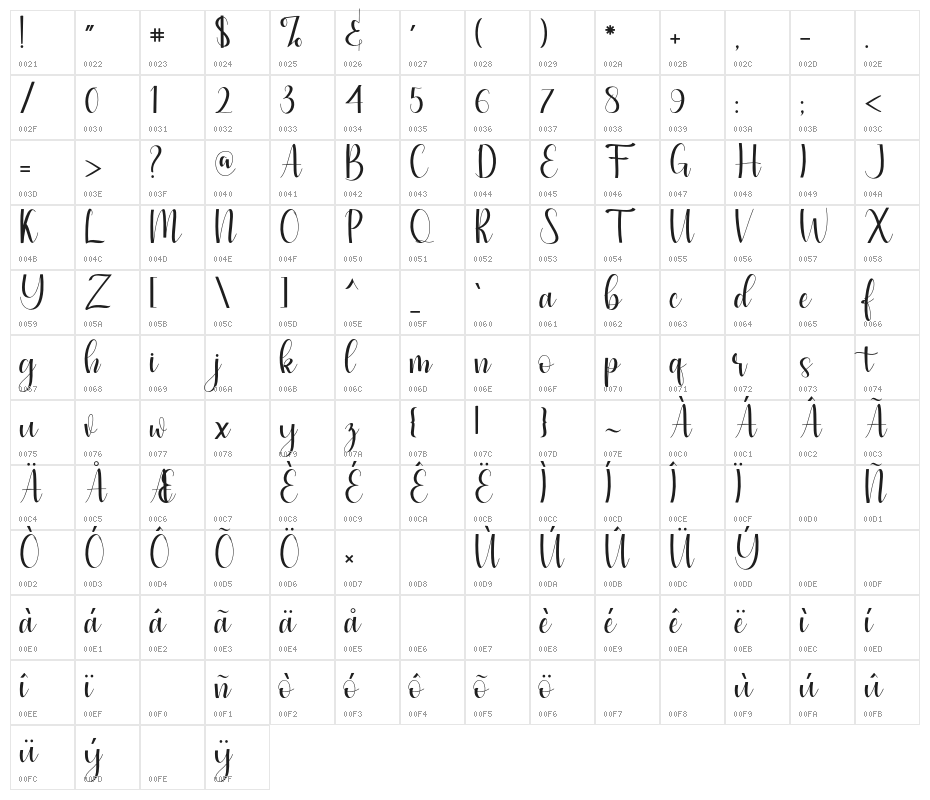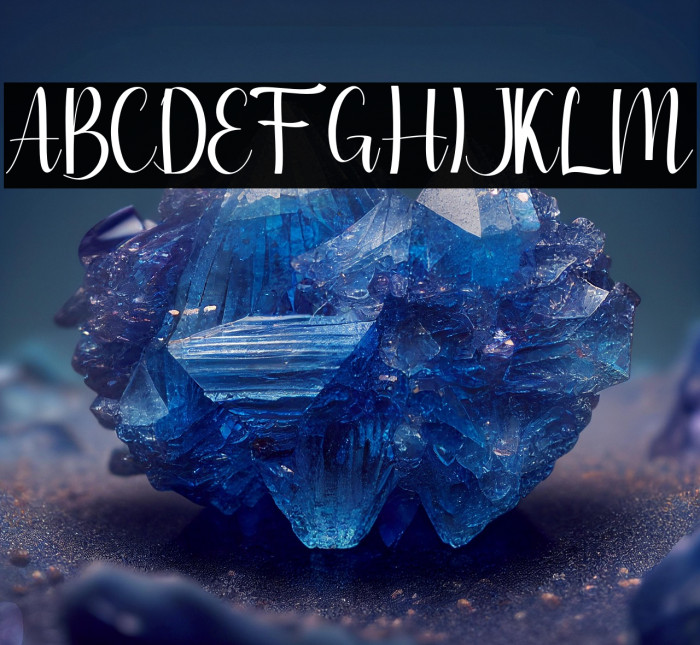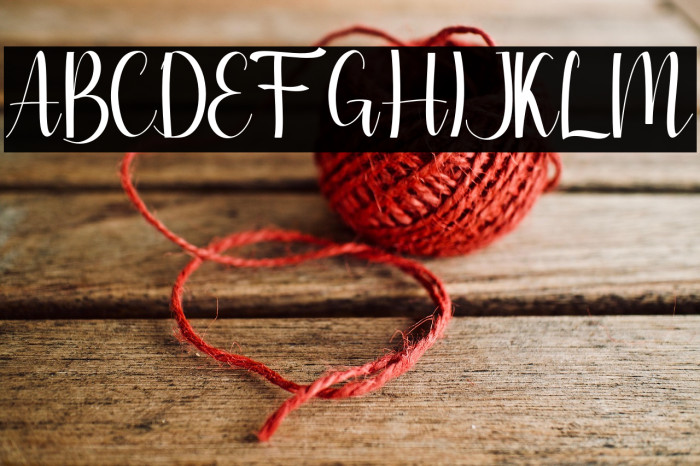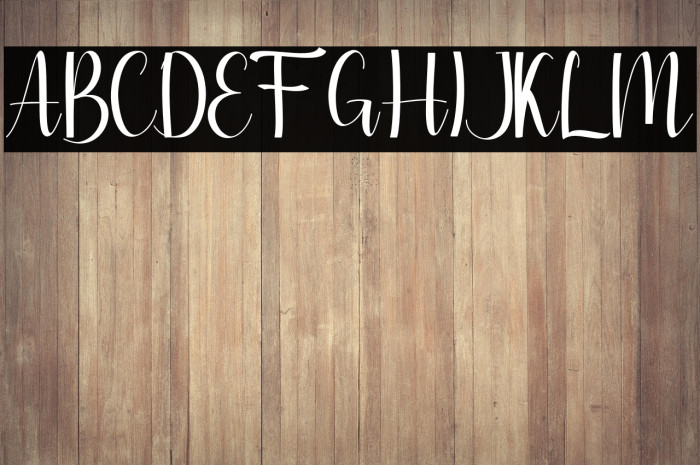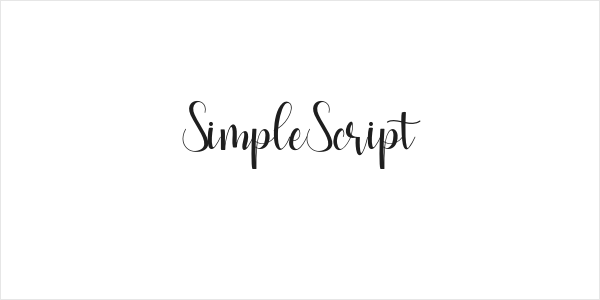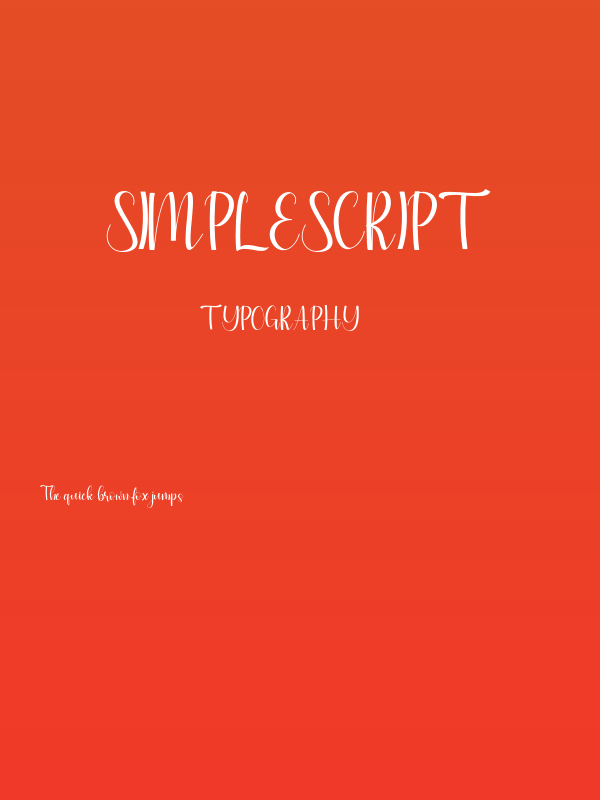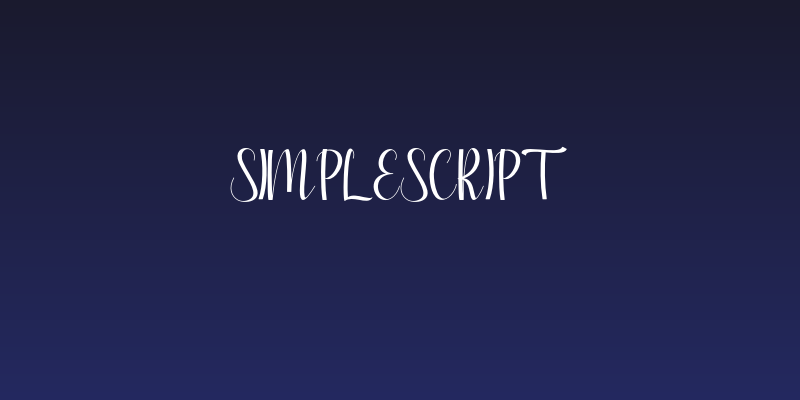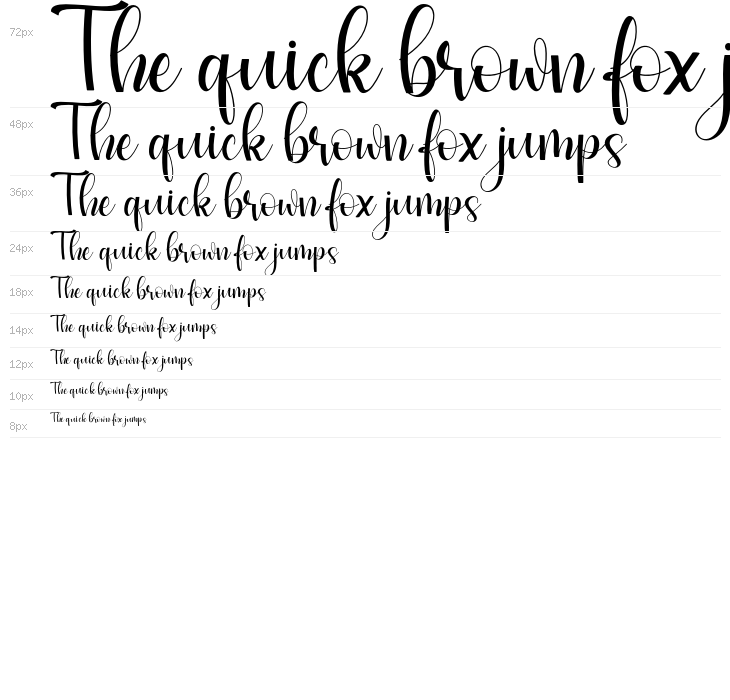
SimpleScript Font
SimpleScript Description
This font features a lively and elegant script style with a playful yet sophisticated flair. The uppercase letters are tall and slender, with graceful curves and loops that add a touch of whimsy. The lowercase letters maintain a consistent flow, with smooth connections between characters, enhancing readability. The numerals are distinct and stylish, complementing the overall aesthetic. Special characters are creatively designed, adding versatility to the font. The strokes vary in thickness, providing a dynamic contrast that enhances the visual appeal.